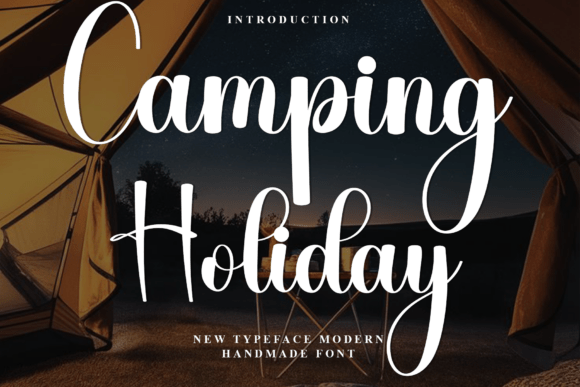
The Magic of Camping Holiday Font: A Festive Addition to Your Designs
It’s the most wonderful time of the year, and as designers, we’re always on the lookout for that perfect font to capture the spirit of the holiday season. I still remember the time I was working on a Christmas card project, and my client asked for a font that was “festive, merry, and had a touch of whimsy.” I scoured the internet, tried out countless fonts, but none seemed to fit the bill. That was until I stumbled upon the Camping Holiday font. It’s been a game-changer for my holiday designs ever since.
What I Love About Camping Holiday Font
- ✨ Festive and merry vibe that’s perfect for holiday designs
- ✅ Decorative elements and whimsical flair that add a touch of enchantment
- 🎉 PUA encoded, making it easy to access all the amazing glyphs and ligatures
- 👍 Highly legible, even at smaller font sizes
While Camping Holiday font is a fantastic addition to any design project, there are a few things to keep in mind:
- ⚠️ Some of the decorative elements can be a bit over-the-top, so use them sparingly
- 🤔 Limited use outside of holiday-themed projects, as it may not fit with other design styles
The Designer Inspiration Behind Camping Holiday Font
Camping Holiday font was inspired by the magic of the holiday season. Imagine a snowy forest, twinkling lights, and the sound of laughter and carols filling the air. The designer wanted to capture that feeling in a font that would bring joy and wonder to any design project.
Q: Is Camping Holiday font available in different font weights?
A: Currently, Camping Holiday font is available in a single font weight, but the designer may release additional weights in the future.